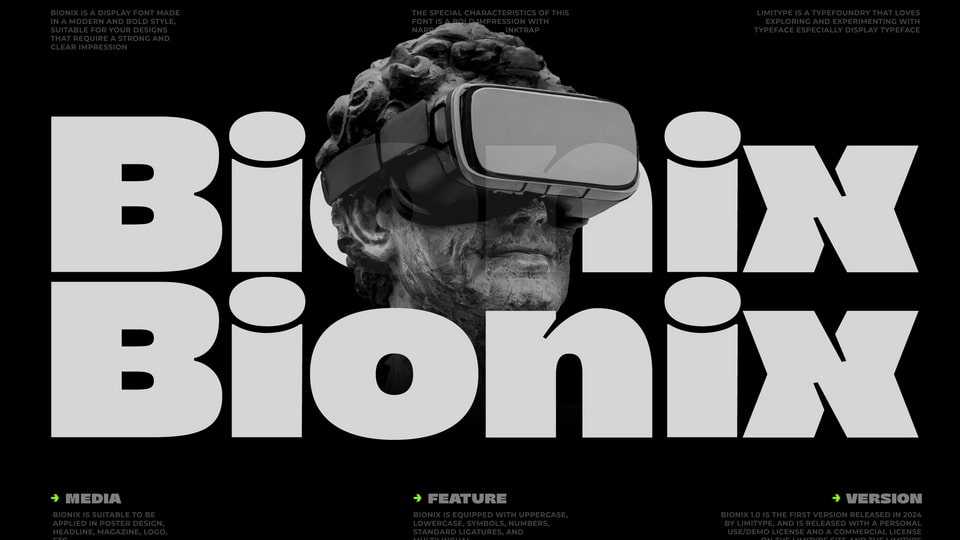
Bionix Font › Fontesk – Download Grátis
Download Bionix font, a sans display typeface made with a bold and modern impression, equipped with inktrap which adds personality to this font.